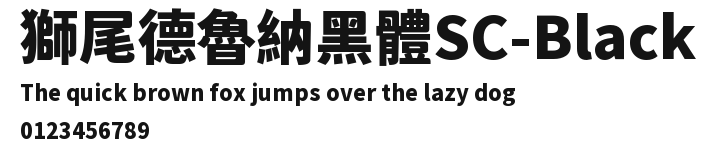
獅尾德魯納黑體SC-Black Preview
• Font Name: 獅尾德魯納黑體SC-Black
• Font Style: Black
• Full Font Name: 獅尾德魯納黑體SC-Black
• PostScript Name: SweiDelLunaSansCJKsc-Black
About 獅尾德魯納黑體SC-Black.ttf
獅尾德魯納黑體SC-Black.ttf is a modern, elegant sans-serif font designed for ultimate readability and visual harmony. Perfect for branding, headlines, web design, and print materials.